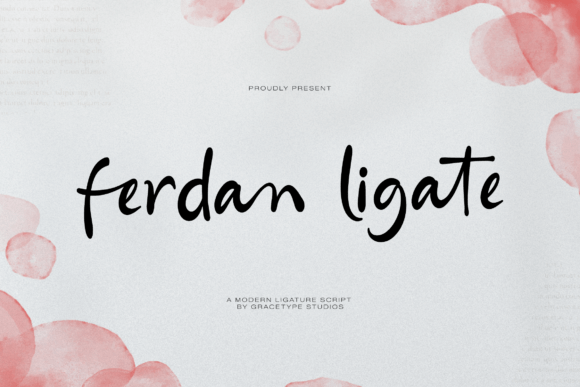
Ferdan Ligate: A Fluid Typeface for Brand Identity
I still remember the exact moment I realized my business visuals were holding me back. It wasn’t a dramatic crisis or a customer complaint. It was a quiet Tuesday afternoon while I was packing orders for my small online shop. I had spent weeks perfecting the product itself, ensuring every item was wrapped with care, but when I looked at the thank-you card and the shipping label, something felt off. The typography was stiff, generic, and completely disconnected from the warm, handmade vibe I was trying to convey. I knew I needed a change, but I didn’t have the budget for a full rebranding agency. I needed a tool that could instantly elevate my look without requiring a degree in graphic design. That is when I discovered Ferdan Ligate.
Ferdan Ligate is not just another font; it is a contemporary, expressive ligature script that feels alive. Unlike rigid digital typefaces that can feel cold or corporate, this font emphasizes a natural, hand-drawn flow. It features medium-weight strokes with a relaxed, slightly irregular rhythm that mimics the movement of a real pen on paper. For a small business owner, this distinction matters. It signals authenticity. When customers see Ferdan Ligate on a packaging label or a social media post, they don’t just see text; they see a human touch. It bridges the gap between professional polish and personal connection, which is exactly what modern consumers are looking for.
Transforming Everyday Business Materials
The first place I applied Ferdan Ligate was on my product packaging. I run a small boutique selling artisanal home goods, so the unboxing experience is crucial. I replaced my old, blocky header font with Ferdan Ligate for the product names on the boxes. The difference was immediate. The fluid connections between letters gave the packaging a sense of elegance and movement. It looked expensive, yet approachable. This is the power of choosing the right script font from a trusted source like Script Amp. It turns a plain cardboard box into a branded experience.
Beyond packaging, I started using it for my digital presence. Social media graphics often suffer from clutter, but Ferdan Ligate’s clean lines allow it to stand out even against busy backgrounds. I used it for Instagram story headers and Pinterest pin titles. Because it is a display font, it works best for short phrases, headlines, and logos rather than long paragraphs. For instance, instead of writing "New Collection Available" in a standard sans serif, I used Ferdan Ligate for "New Collection" and paired it with a simple, clean font for the rest. The contrast created a visual hierarchy that guided the eye and made the content more engaging.
Building Trust Through Visual Consistency
One of the biggest challenges for entrepreneurs is maintaining a consistent brand identity across all platforms. Your website, your business cards, your email signatures, and your physical store signage should all feel like they belong to the same family. Ferdan Ligate helps achieve this consistency because of its versatile personality. It is friendly enough for a café menu but sophisticated enough for a beauty brand’s skincare label.
Consider a local bakery. If they use Ferdan Ligate for their daily special board, it conveys freshness and craftsmanship. If a candle maker uses it on their jar labels, it suggests a slow, deliberate creation process. In both cases, the font acts as a visual shorthand for quality. When customers recognize your typography, they begin to trust your brand. It becomes part of your visual memory. This is why investing in a premium font is not an expense; it is an asset. It builds recognition over time, making your marketing efforts more effective because people start to associate that specific flow and style with your unique value proposition.
Practical Tips for Using Script Fonts
While Ferdan Ligate is beautiful, using script fonts effectively requires some practical know-how. Here are a few lessons I learned along the way:
- Pairing is key: Never use a script font for everything. Ferdan Ligate shines when paired with a clean sans serif font or a subtle serif font. Use the script for emphasis—like your logo or main headline—and the simpler font for body text. This ensures readability and prevents visual fatigue.
- Mind the size: Because Ferdan Ligate has intricate ligatures and connections, it can become hard to read if scaled down too much. It is perfect for large headers, packaging titles, and stickers, but avoid using it for small print on ingredient lists or legal disclaimers. Always test your design on mobile screens to ensure the details remain clear.
- Use ligatures wisely: The beauty of this typeface lies in its ligatures—the connected letters that create a seamless flow. Make sure your design software supports OpenType features so you can access these automatic connections. They save time and ensure the text looks naturally handwritten rather than manually kerned.
In the end, upgrading my brand visuals with Ferdan Ligate was one of the most impactful decisions I made for my business. It did not require a massive budget or a complete overhaul of my operations. It simply required choosing a typeface that aligned with my values. Today, when I look at my packaging, my social media feeds, and my website banners, I see a cohesive, polished brand that feels authentic and inviting. For any entrepreneur looking to make their business look more memorable and professional, starting with the right typography is a powerful first step. Ferdan Ligate offers that perfect blend of modern flair and handcrafted warmth, making it an essential tool in any designer’s or business owner’s toolkit.